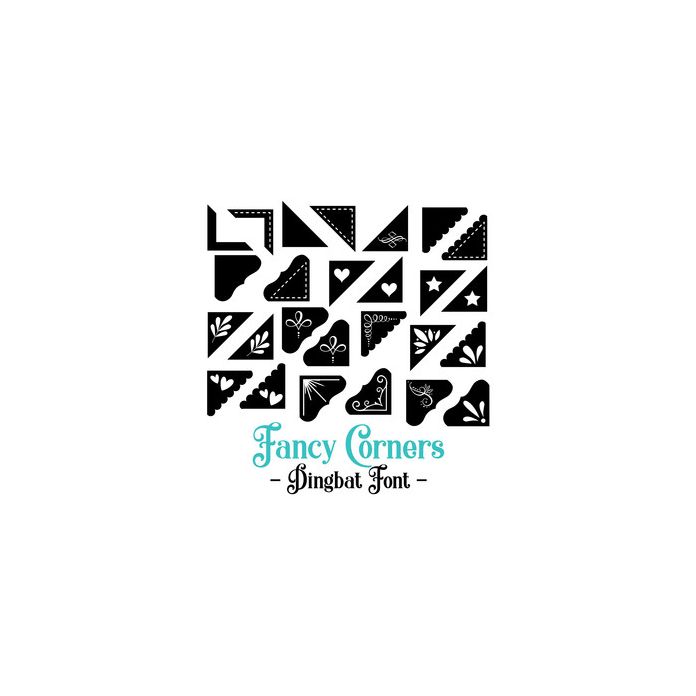
Fancy Corners Dingbat Font. Contains 26 individual Corners, perfect for scrapbooking, card making, photo corners and more! All can be accessed via glyphs. My other fonts can be found in the Silhouette store. For more design ideas, coordinating designs & products and inspiration, please visit my blog http://www.sarahhurleyblog.com